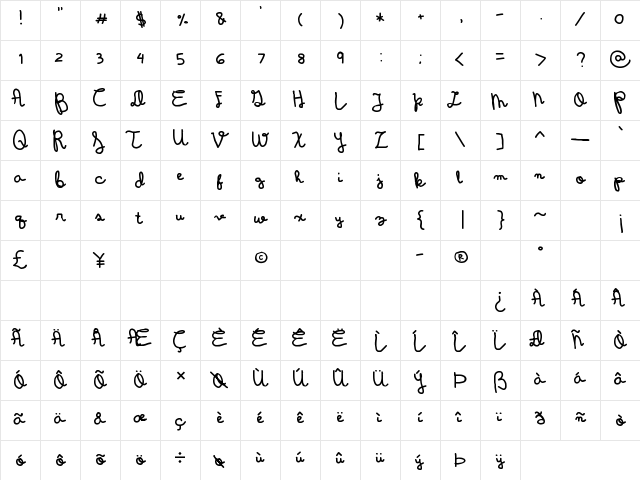
Wintermelon Regular Free Font
Wintermelon Regular
Foundry: Denise Bentulan
Designer: Denise Bentulan
Year: 2012
Design Context for Wintermelon
Wintermelon is a composed and adaptable typeface that performs quietly and consistently across a wide range of design contexts.